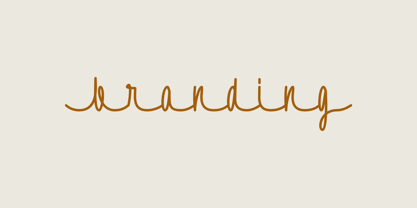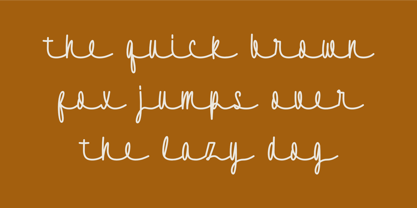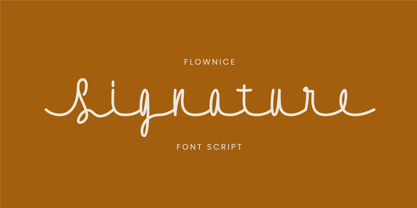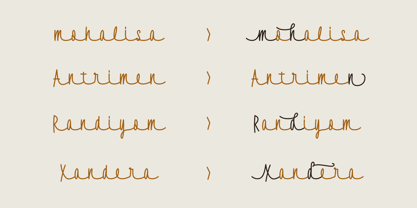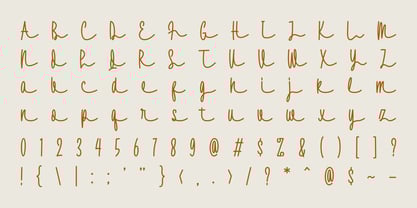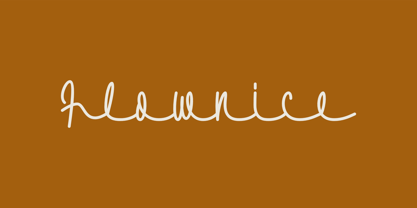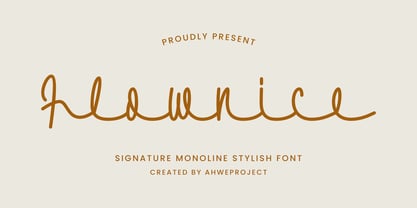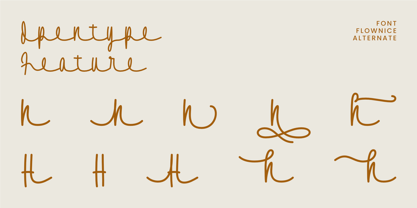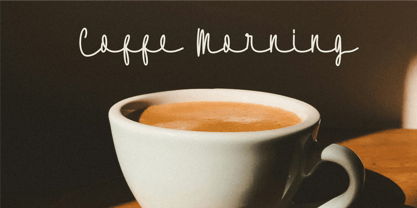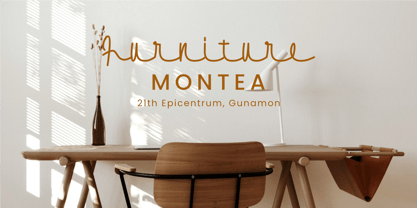
Flownice
Die Schriftfamilie Flownice wurde von Dida Ahluddin entworfen und von ahweproject veröffentlicht. Flownice enthält 1 Stile.
Flownice is a sleek and stylish monoline font, designed with a flowing, hand-drawn feel. Its elegant, continuous lines give it a signature-like appearance, perfect for adding a personal touch to branding, logos, and stationery. The font strikes a balance between simplicity and sophistication, offering a modern yet timeless aesthetic. Its rounded, smooth curves enhance its playful yet refined character, making it ideal for various design projects that require a subtle, handwritten charm.